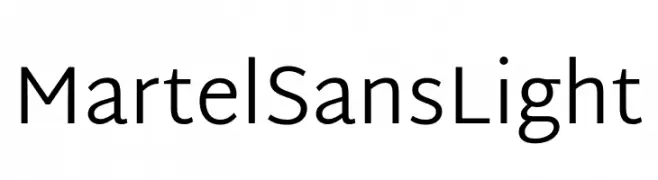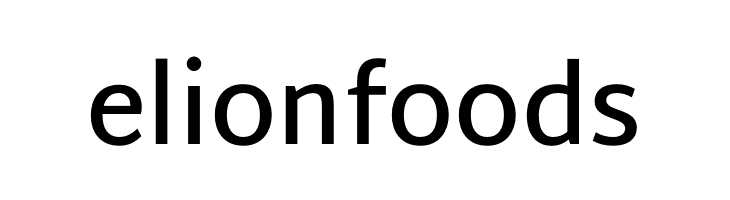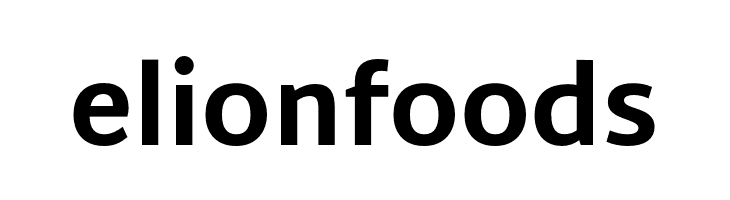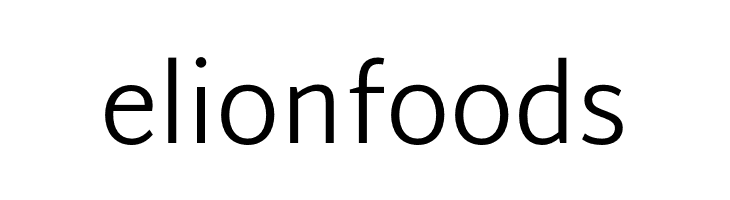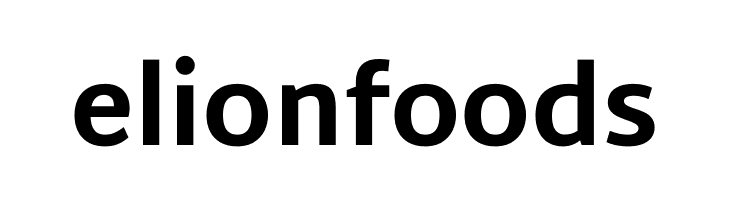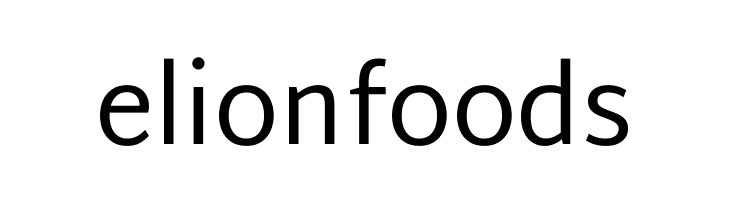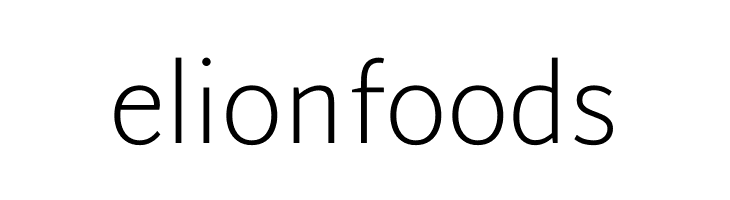
A modern sans-serif font with clean lines and excellent readability.
A bold, modern sans-serif font with a strong, clean appearance.
A bold, modern sans-serif font with clean lines and excellent readability.
A bold, modern sans-serif font with a clean and professional look.
A modern sans-serif font with bold, geometric letterforms and excellent readability.
A bold, modern sans-serif font with a strong and assertive appearance.
A robust, extra bold sans-serif typeface with a modern and professional look.
A clean, modern sans-serif font with low contrast and excellent readability.
A bold, modern sans-serif font with a strong and impactful presence.
A clean, modern sans-serif font with a light weight and excellent legibility.